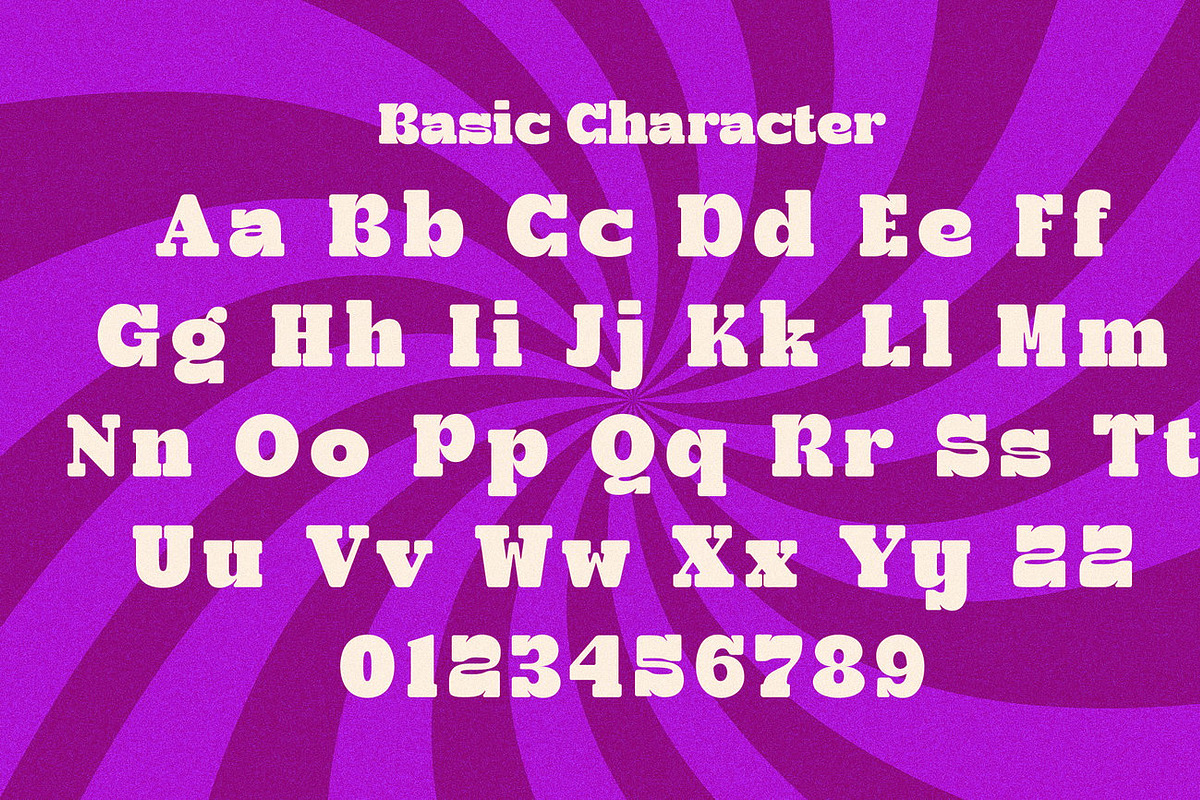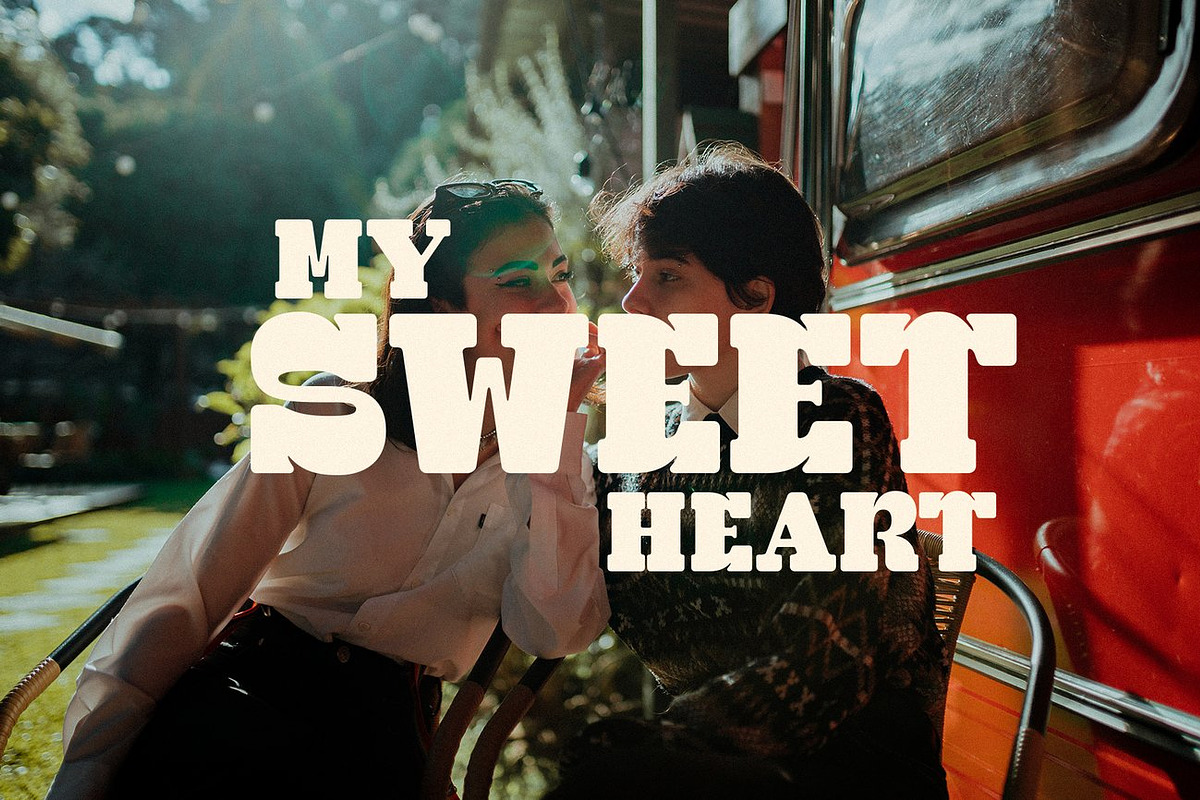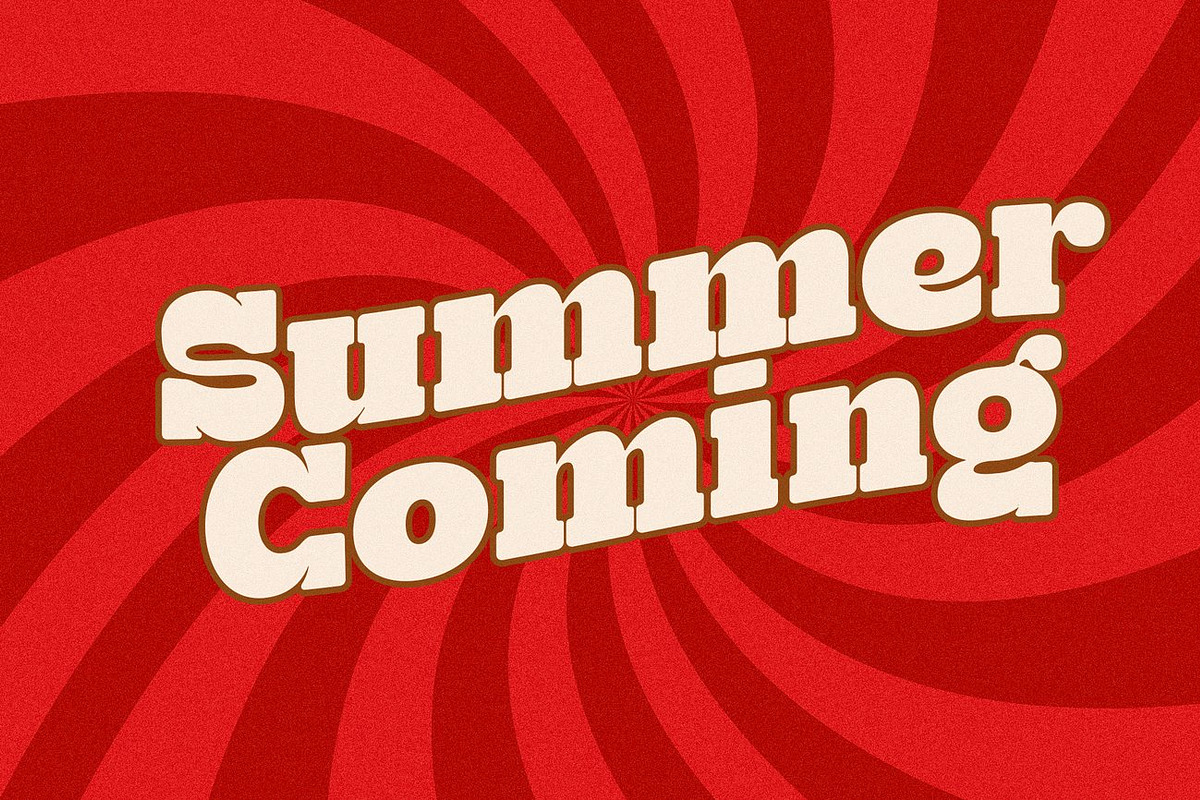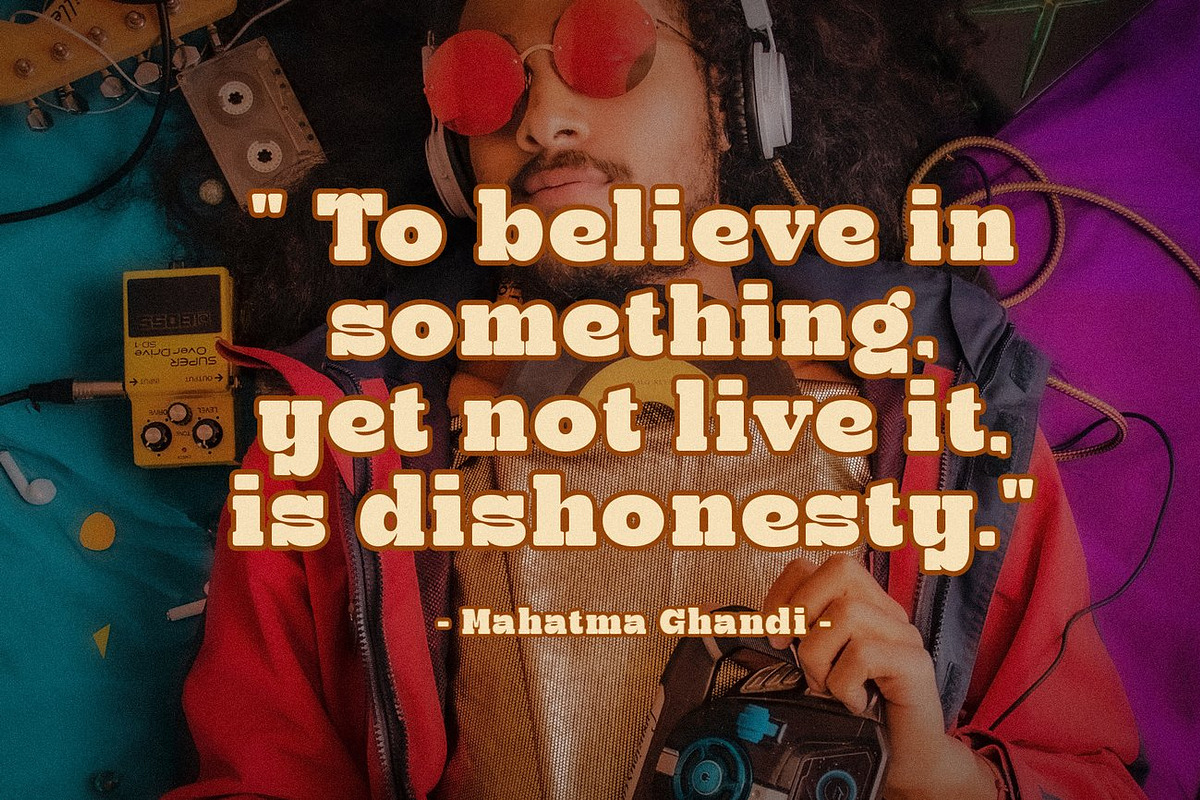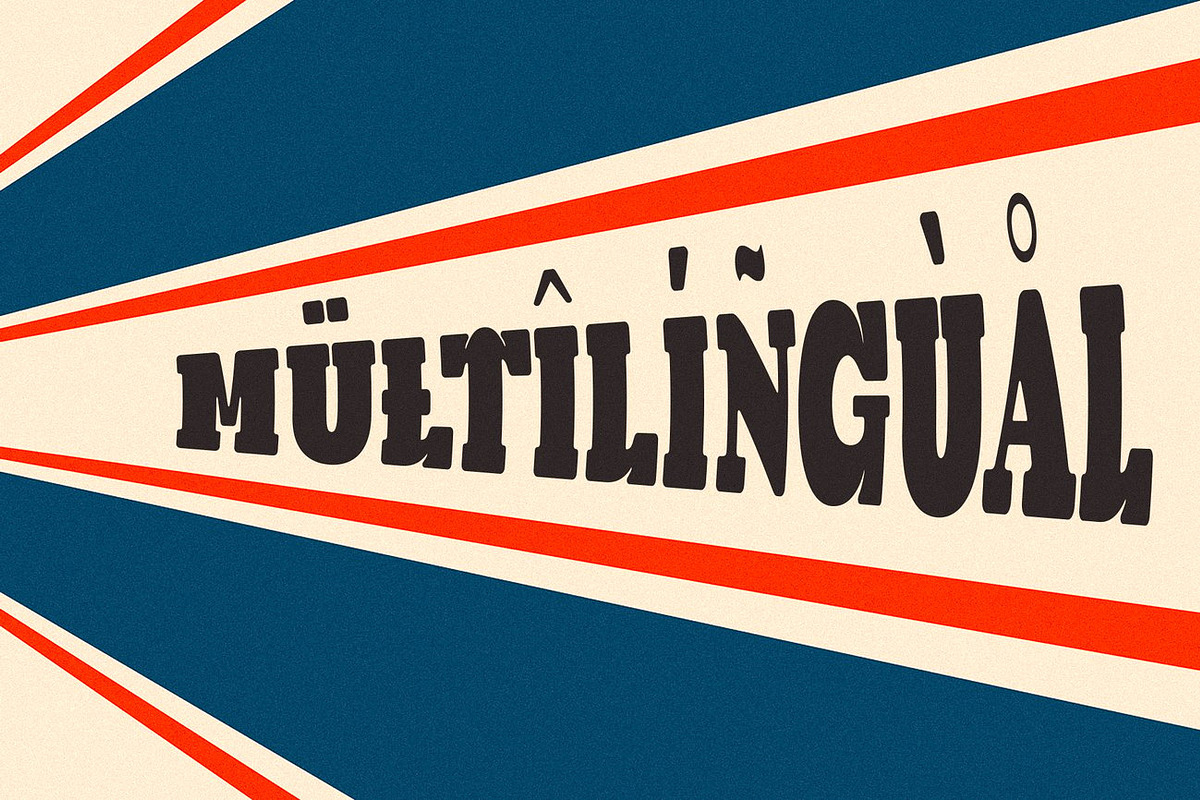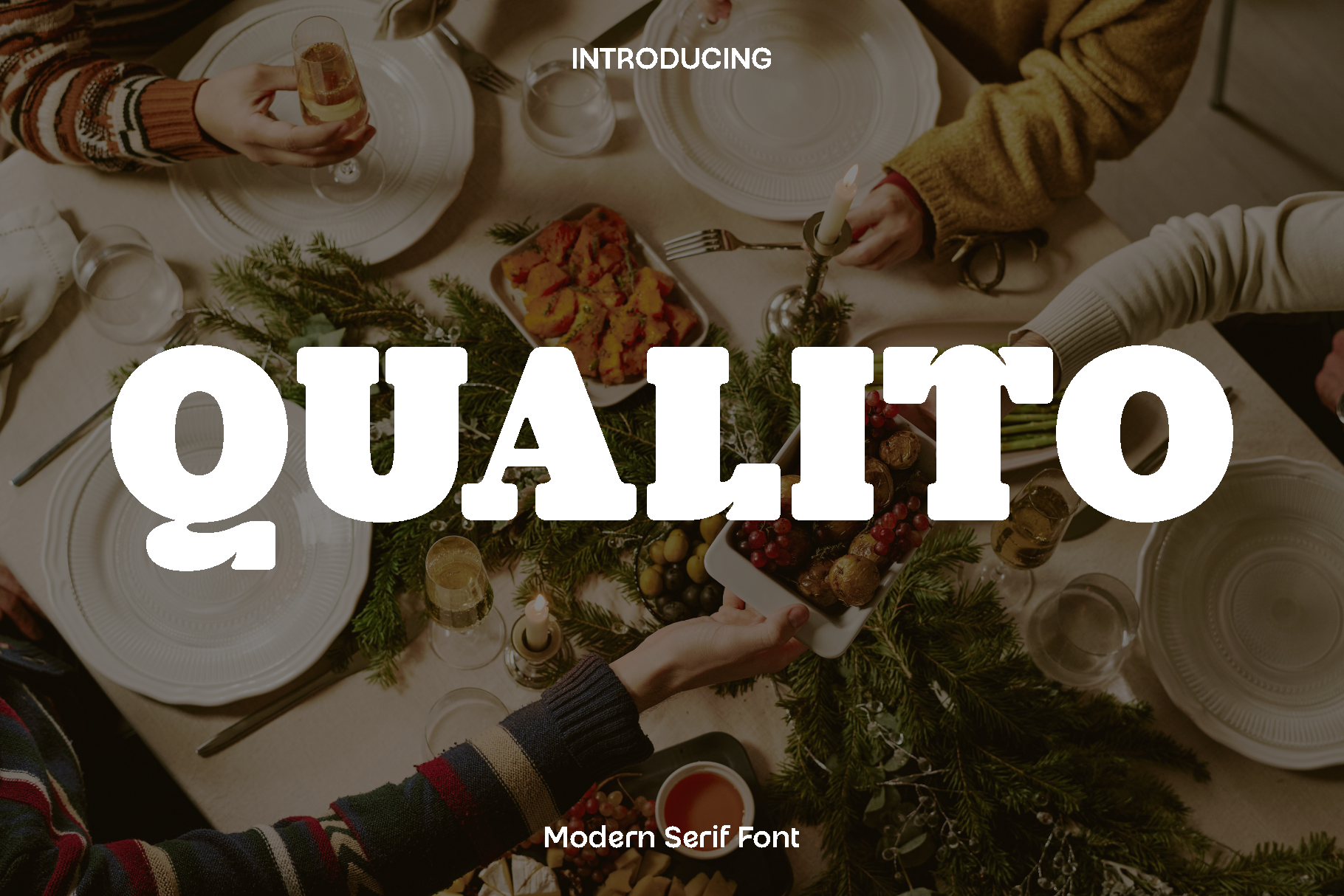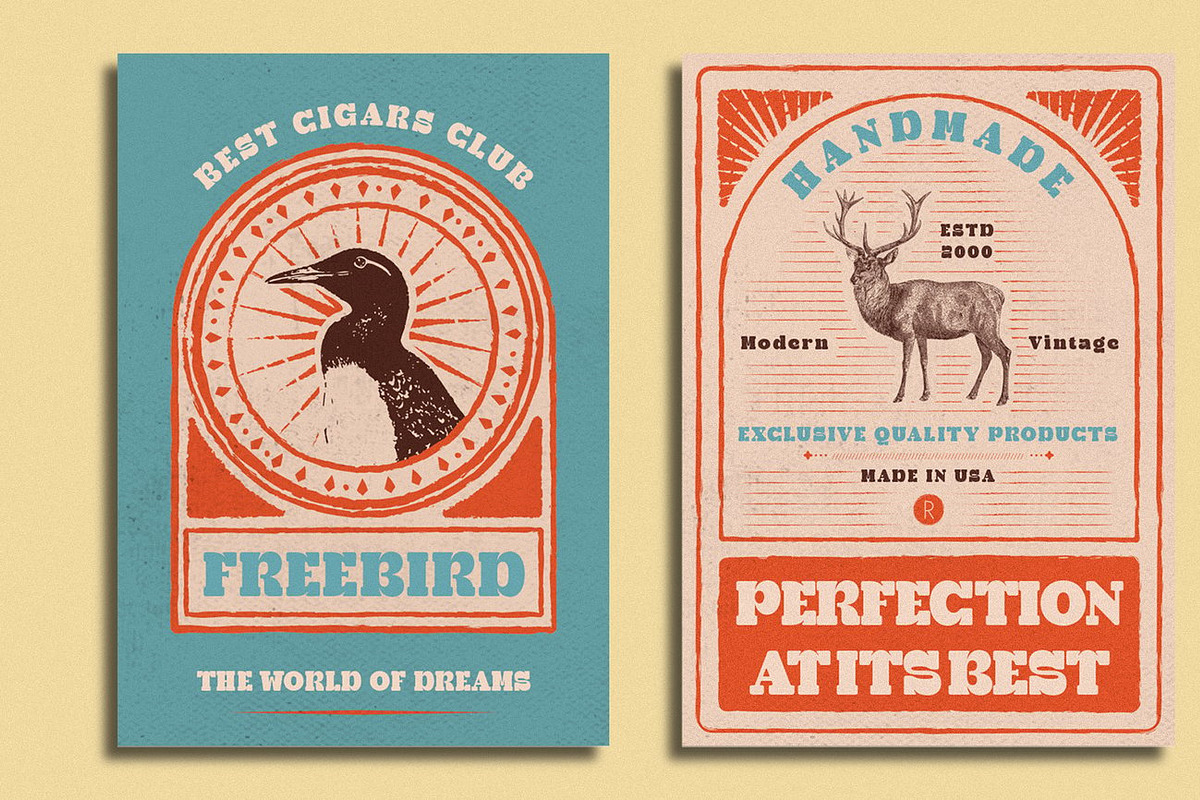
Qualito - Retro Display Font
Qualito is a special retro style font created with careful precision and a deep appreciation for classic typography. Inspired by vintage lettering and nostalgic design eras, Qualito brings warmth, personality, and timeless character into modern creative work. Every letter is thoughtfully crafted to reflect bold retro charm while maintaining clean structure and visual balance, making it both expressive and easy to use.
This font feels playful, confident, and authentic. It shines in branding projects that want a vintage soul, eye catching logos, product packaging, greeting cards, headlines, posters, and promotional designs. Qualito is especially effective when you want your message to feel memorable and full of character, whether in print or digital formats. Its strong shapes help designs stand out instantly while preserving a friendly and approachable tone.
Qualito blends classic inspiration with modern usability, making it a versatile choice for designers who love retro aesthetics but still want professional results. From bold titles to creative branding elements, this font adds a distinctive retro voice that elevates your work and brings designs to life with style and confidence.
Qualito Retro Style Font Features:
• Retro inspired display characters
• Clean and bold letterforms
• Suitable for branding, logos, packaging, and headlines
• Uppercase and lowercase
• Easy to use for print and digital designs